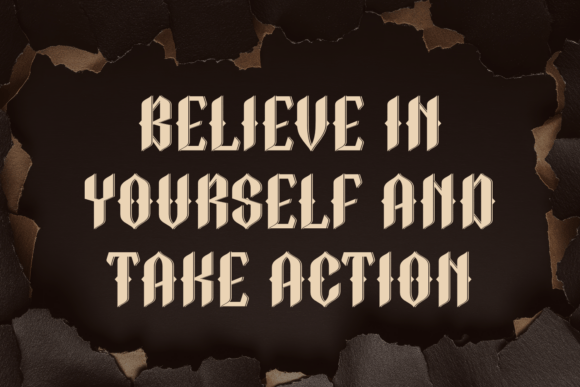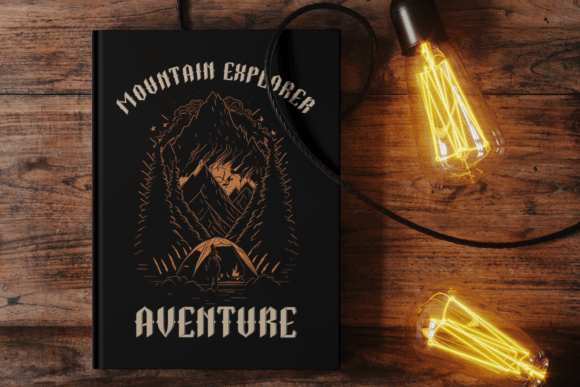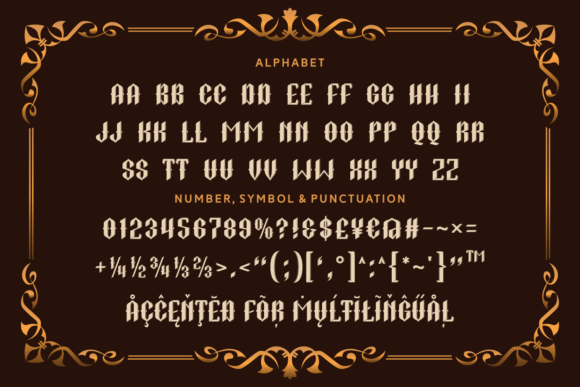
Introduction to Hard Call Font
You’re in the midst of a creative project, and you need that perfect font to bring your vision to life. The hours tick by as you scroll through design resources, searching for something that exudes the bold and historical aesthetic you’re going for. Then, like a beacon of hope, you stumble upon the Hard Call Font, a blackletter font that screams vintage charm and sophistication.
As a designer, you know the value of having high-quality design resources at your fingertips. The Hard Call Font is a game-changer, offering a unique and versatile look that’s sure to make your creative projects stand out.
Key Features of Hard Call Font
- High-quality, professional font suitable for various creative projects, including logos, signage, and branding materials.
- Designed with a unique aesthetic, the Hard Call Font offers a distinctive look that can help your project stand out.
Honest Review: Hard Call Font
I recently had the opportunity to work with the Hard Call Font and I must say it’s a fantastic addition to any designer’s toolkit. This free download is perfect for any creative project that requires a high-quality, professional font.
Here are some things that I really like about the Hard Call Font:
- ✨ The font is incredibly versatile and can be used for a wide range of projects, from logos to body text.
- ✨ The font is available in a range of weights and styles, giving designers a lot of flexibility.
However, I did encounter a few limitations while using the Hard Call Font:
- ⚠️ The font can be a bit difficult to read at smaller font sizes.
- ⚠️ Some of the characters may not render correctly in certain design software.
Overall, I’m really impressed with the Hard Call Font. It’s a great design resource that can help take any project to the next level. With its high quality and versatility, it’s definitely worth adding to your collection of design fonts.
The Hard Call Font is ideal for creative projects, such as:
Brochures and flyers
Business cards and resumes
Social media graphics and advertisements